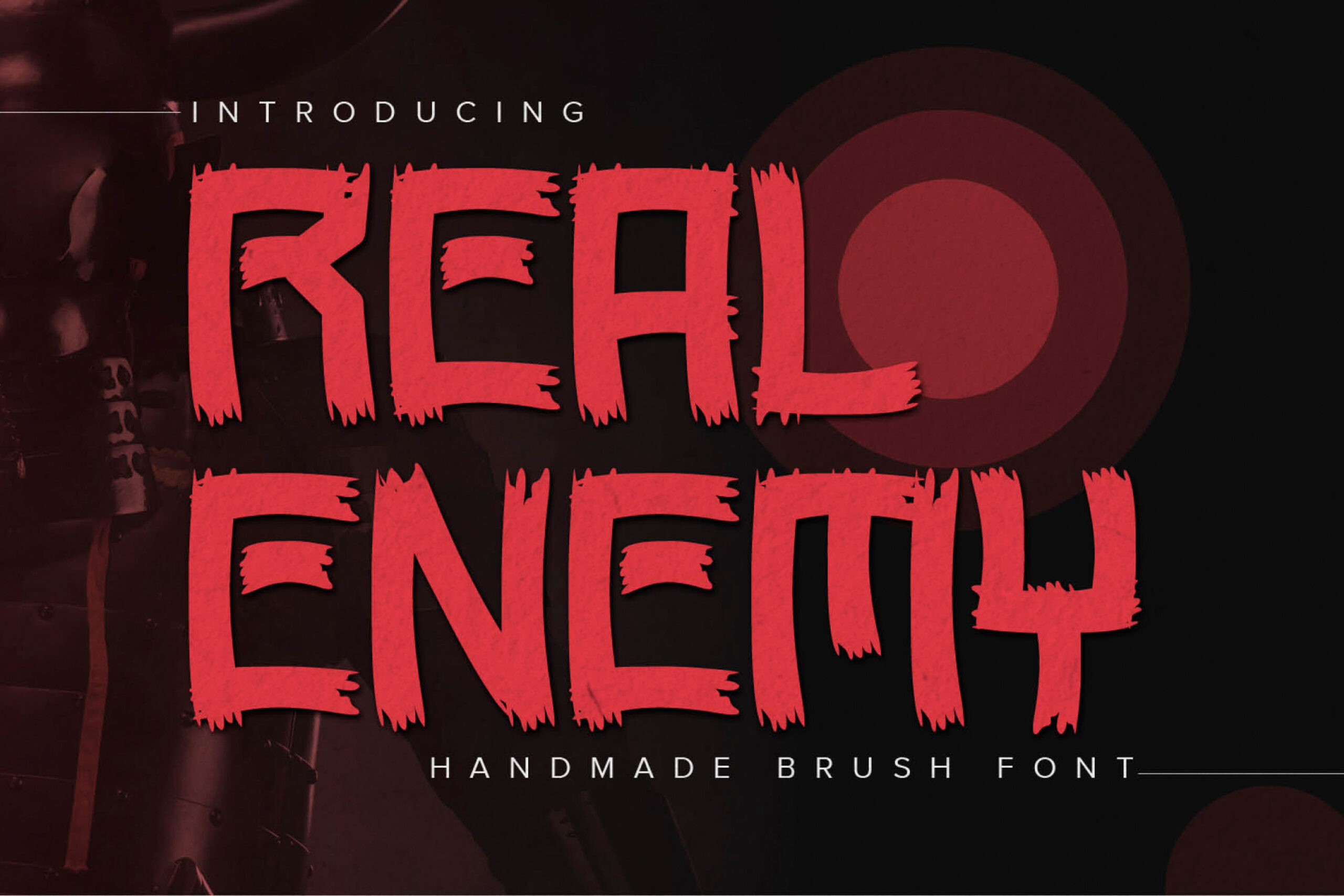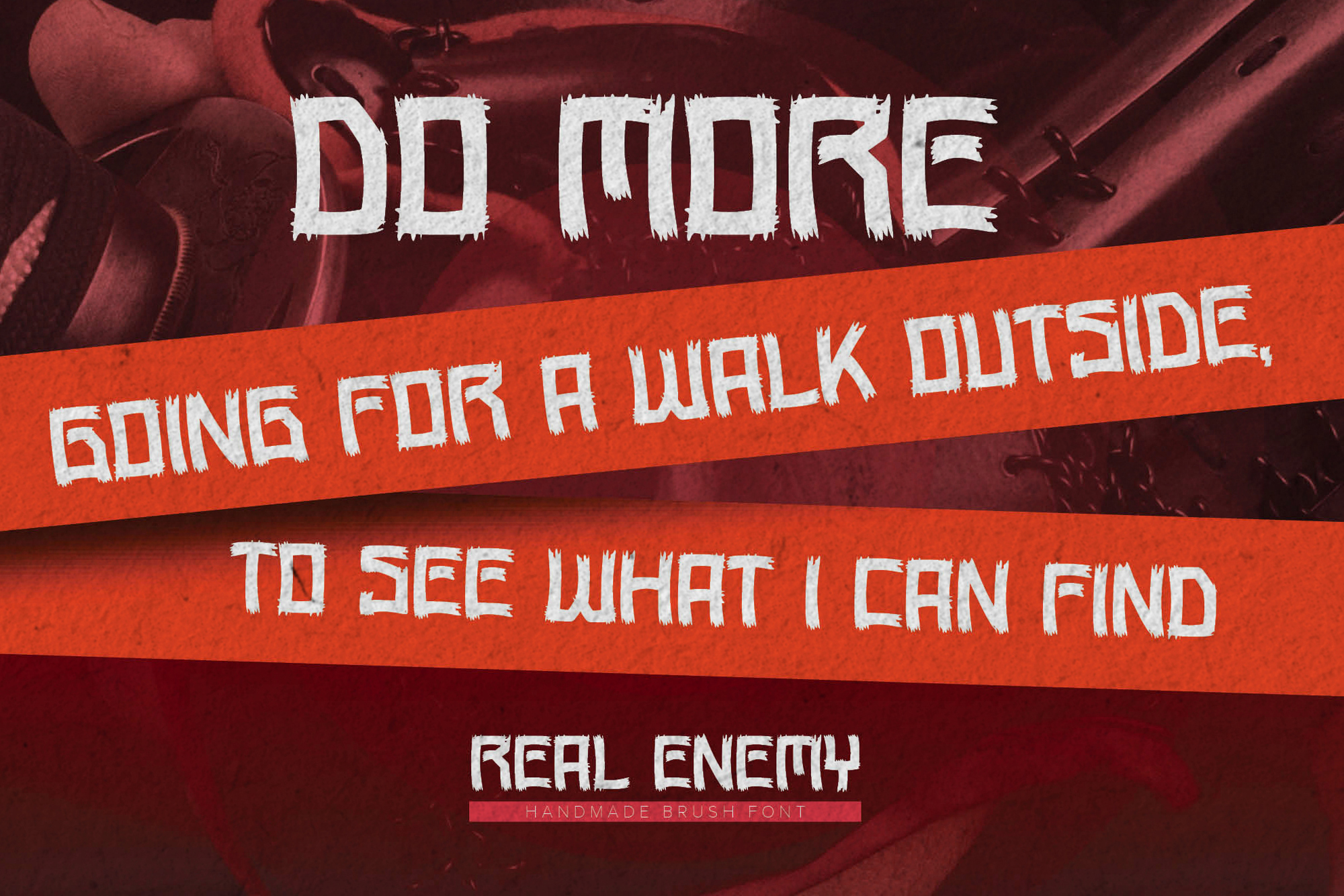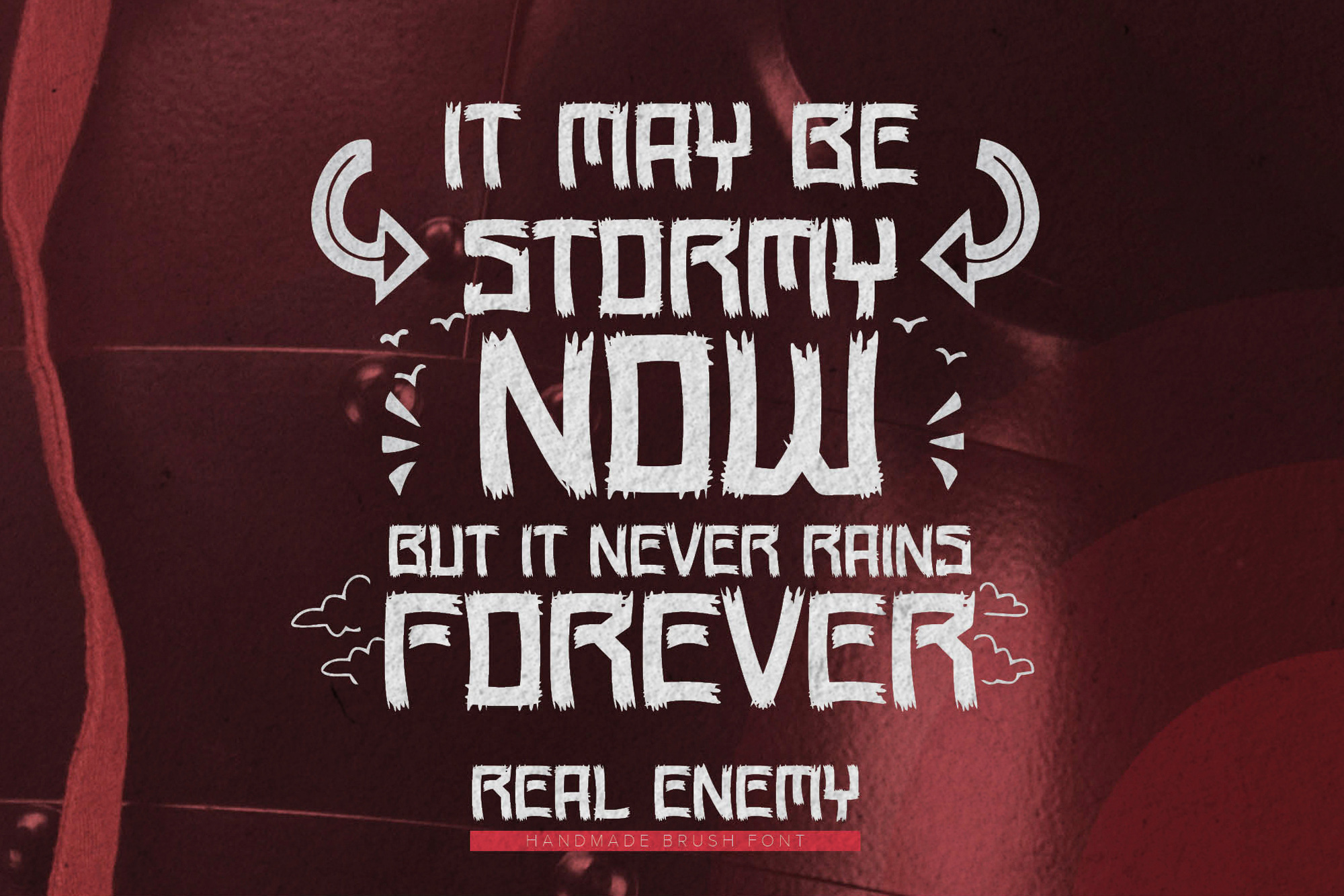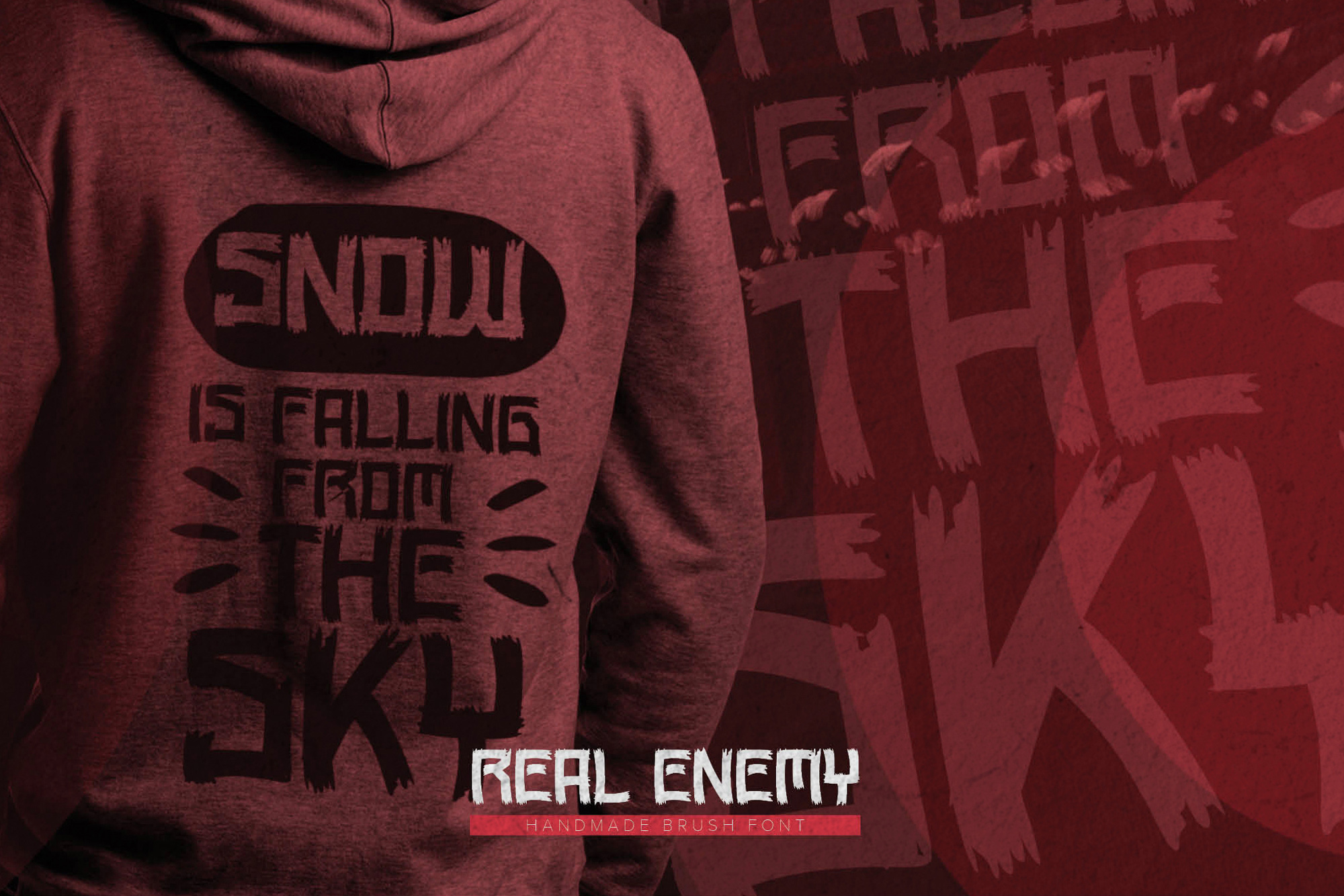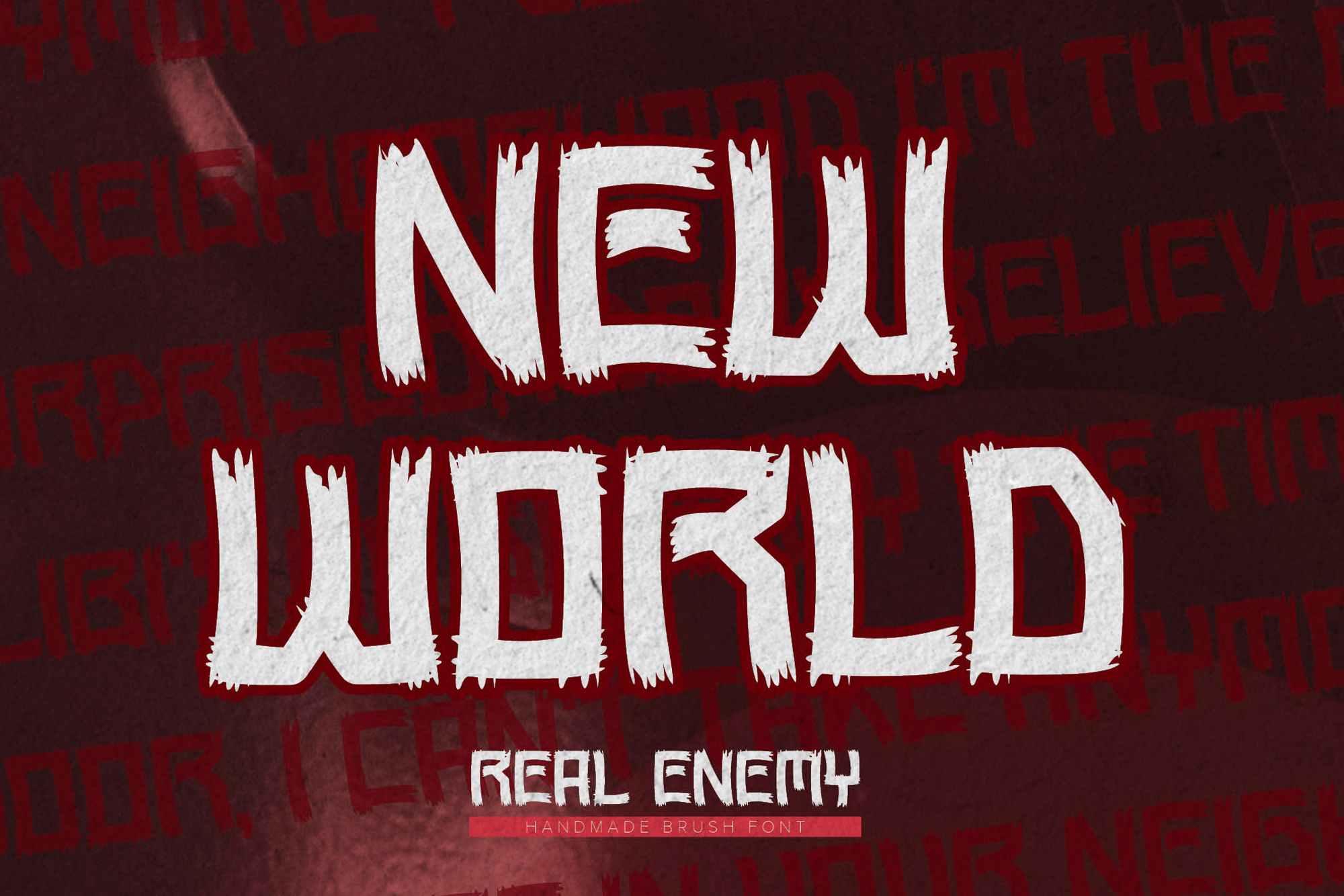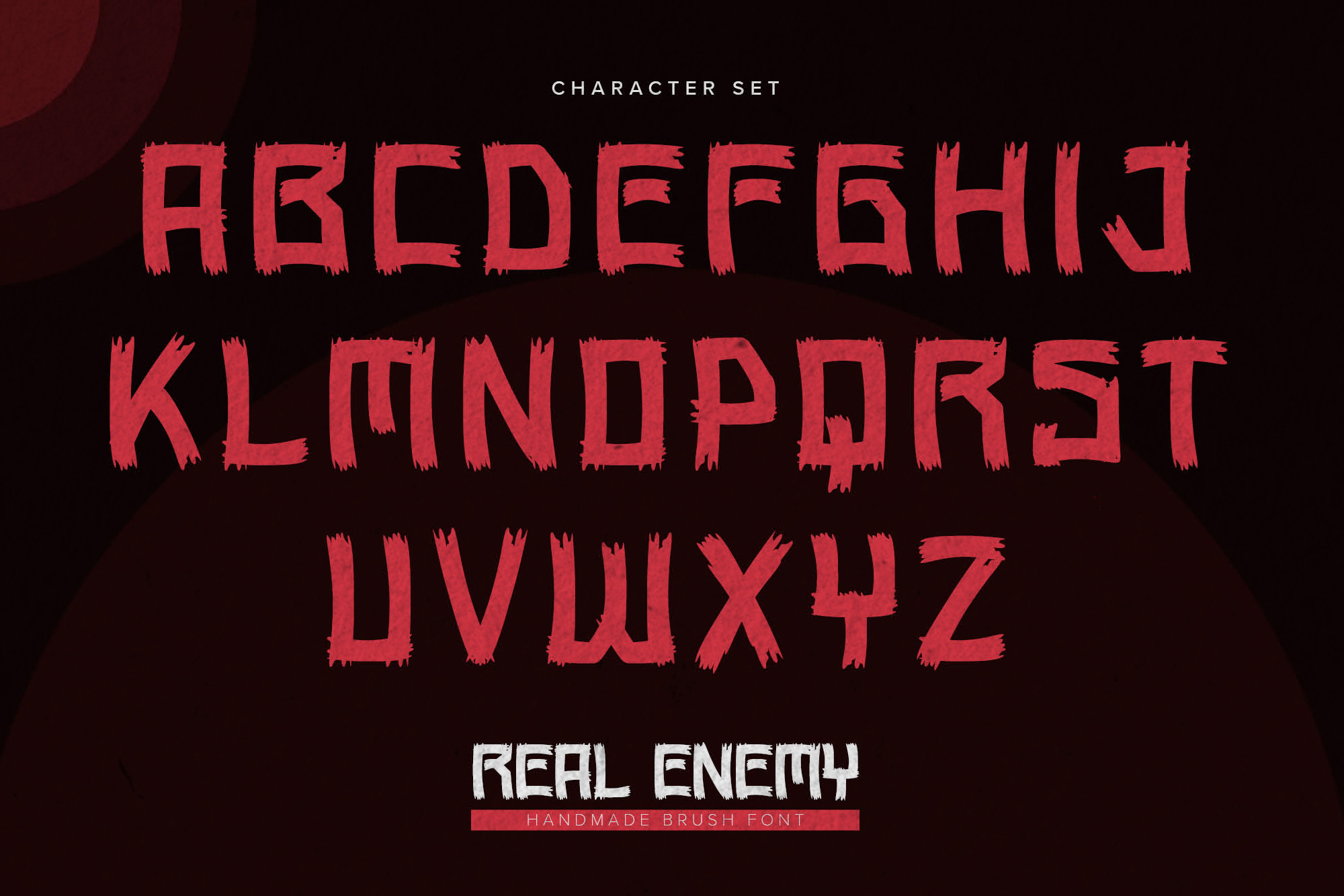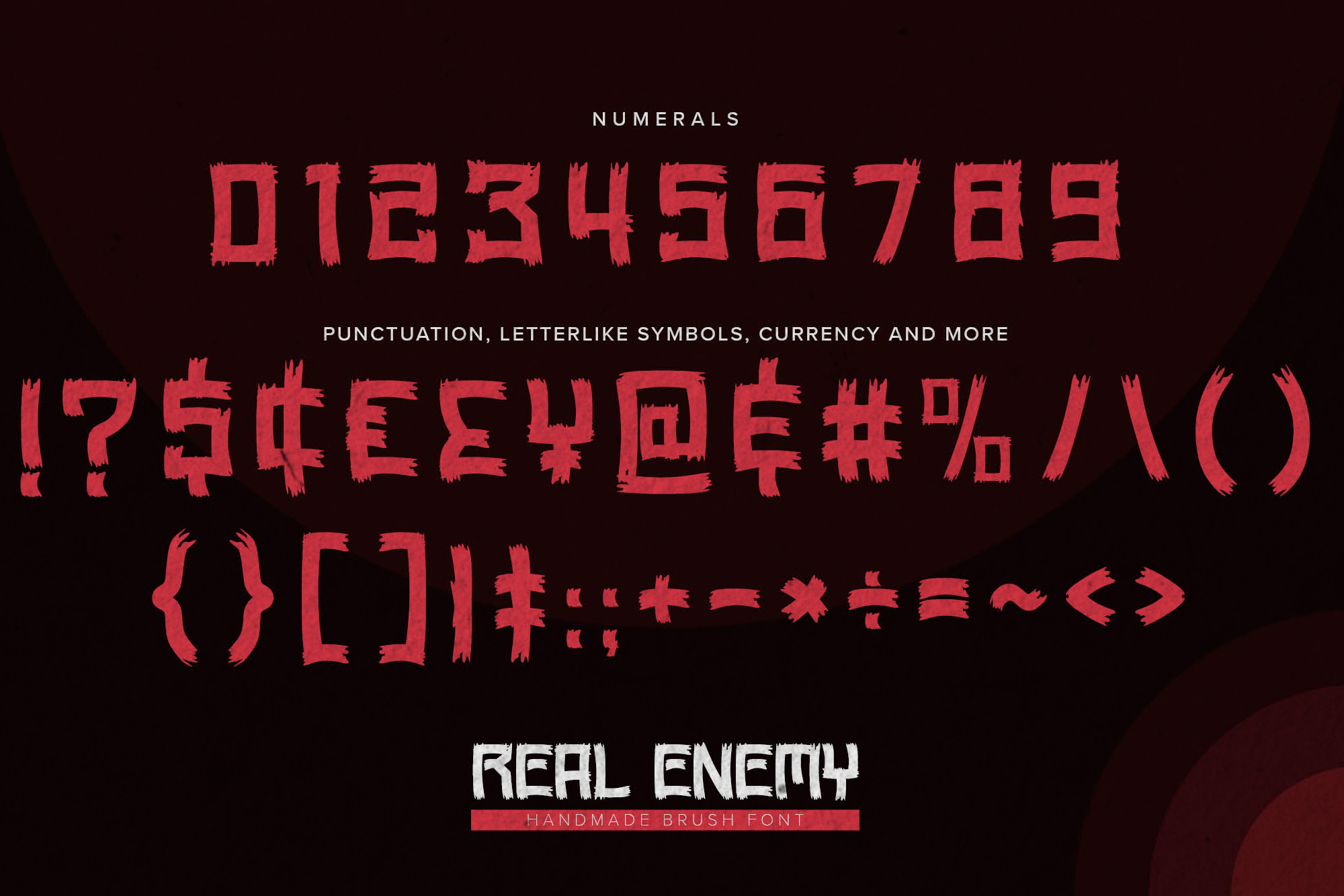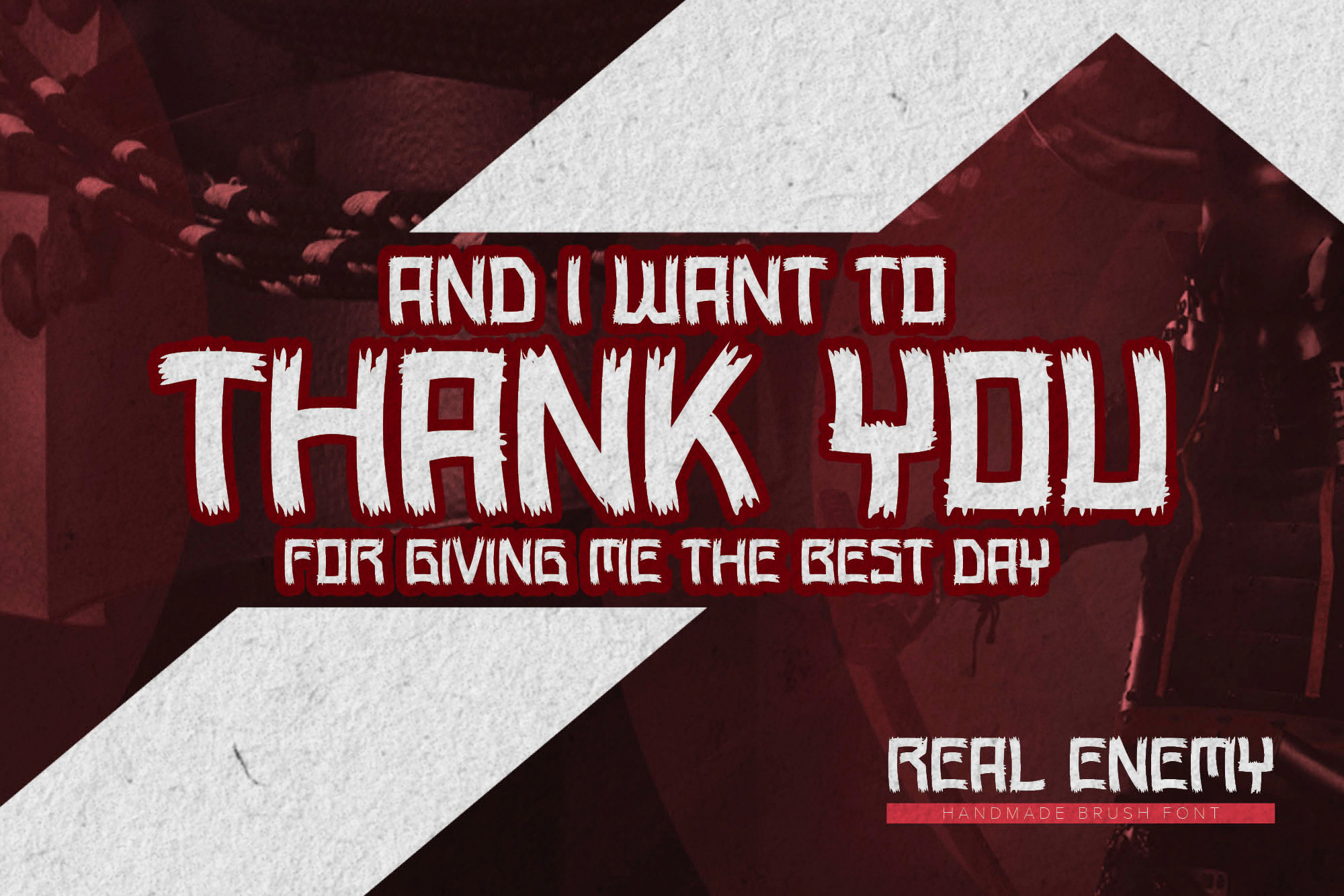
REAL ENEMY – Handmade Brush Font, authentic style and dramatic movement that is written casually and quickly.
The best for poster,project , designs look modern, unique and fun. It’s perfect for labels, quotes, posters, DIY projects, branding, packaging, greeting cards, websites, photography overlays, signs, scrapbooking, tags and so much more! That is why REAL ENEMY has a cool, and unique characteristic more natural look.